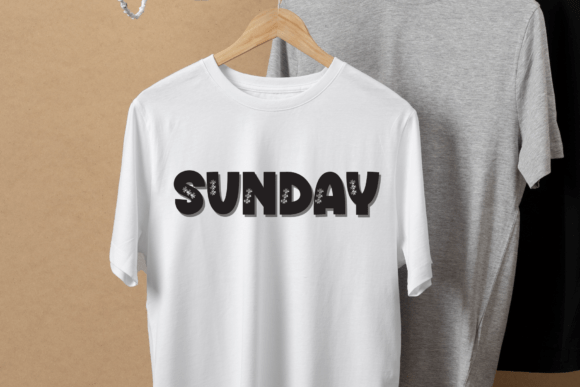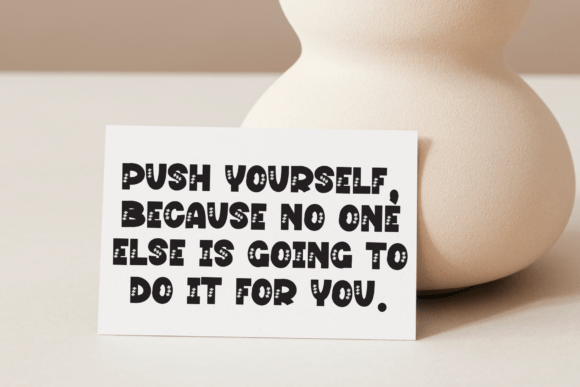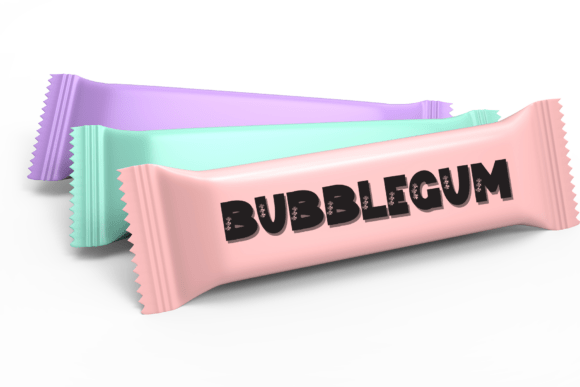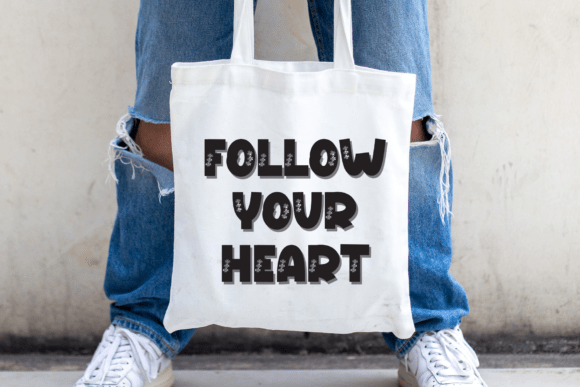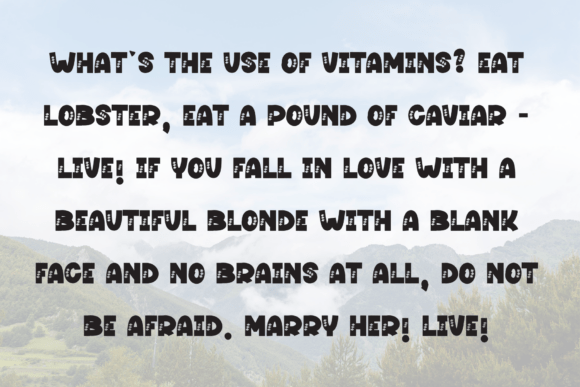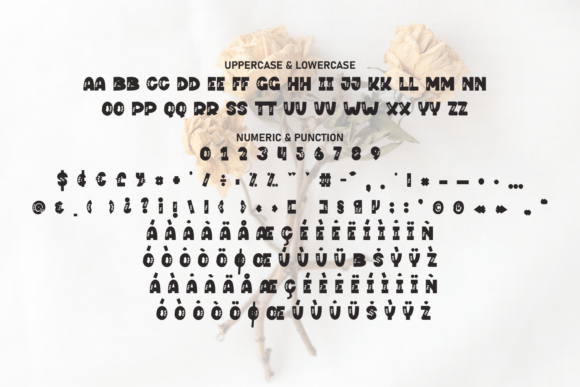
Discover the Charm of Flower Eternal Font: Elevate Your Designs with a Modern yet Laid-Back Vibe
In the world of typography, finding the perfect font that balances style with readability can be a daunting task. However, if you’re on the hunt for a typeface that exudes a modern yet laid-back feel, look no further than the Flower Eternal Font. This neat and casual display font is designed to bring clarity and an approachable vibe to your designs, making it an excellent choice for a wide range of creative projects.
The Essence of Flower Eternal Font
Flower Eternal Font is characterized by its clean lines and friendly letterforms. These features make it an ideal choice for headlines, posters, packaging, and branding that aims to feel modern yet laid-back. The font’s balanced structure ensures that it remains clear and legible, even at larger sizes, while its playful energy injects personality into any project.
Key Features of Flower Eternal Font
- Clean Lines and Friendly Letterforms: The font’s design focuses on simplicity and approachability, making it easy to read and visually appealing.
- Balanced Structure: The balanced structure of Flower Eternal Font ensures that it remains clear and legible, even at larger sizes.
- Playful Energy: Despite its clean and modern look, the font has a playful touch that can add personality to your designs.
- Versatility: Flower Eternal Font is suitable for a wide range of design projects, from headlines and posters to packaging and branding.
Why Choose Flower Eternal Font?
There are several reasons why Flower Eternal Font stands out from the crowd. Firstly, its unique blend of modernity and laid-back vibe makes it perfect for designers who want to create a specific atmosphere in their work. Whether you’re designing for a fashion brand, a lifestyle blog, or a creative agency, this font can help you achieve your desired aesthetic.
Secondly, Flower Eternal Font is incredibly versatile. Its clean and clear design makes it suitable for use in both digital and print materials. Whether you’re creating a social media graphic, a website header, or a brochure, this font can adapt to your needs.
Lastly, Flower Eternal Font is designed to be highly legible. This is crucial for ensuring that your message gets across clearly, without any compromise on style. The font’s readability makes it an excellent choice for designs that require both style and substance.
How to Use Flower Eternal Font in Your Designs
Using Flower Eternal Font in your designs is straightforward. Here are a few tips to get you started:
- Pair it with Other Fonts: Flower Eternal Font works well when paired with other fonts. Consider combining it with a serif font for a contrasting look or with another sans-serif font for a cohesive feel.
- Experiment with Sizes: Don’t be afraid to experiment with different sizes. Flower Eternal Font remains clear and legible even at larger sizes, making it perfect for headlines and titles.
- Play with Colors: The font’s clean design makes it versatile for use with different colors. Try pairing it with bright colors for a bold look or with muted tones for a more subtle effect.
Flower Eternal Font is a versatile and stylish typeface that can elevate your designs with its modern yet laid-back vibe. Its clean lines, friendly letterforms, and balanced structure make it perfect for a wide range of creative projects. Whether you’re a designer, a craftsperson, or simply someone who appreciates good typography, Flower Eternal Font is definitely worth checking out. So why wait? Discover the charm of Flower Eternal Font today and bring a new level of style and readability to your designs.